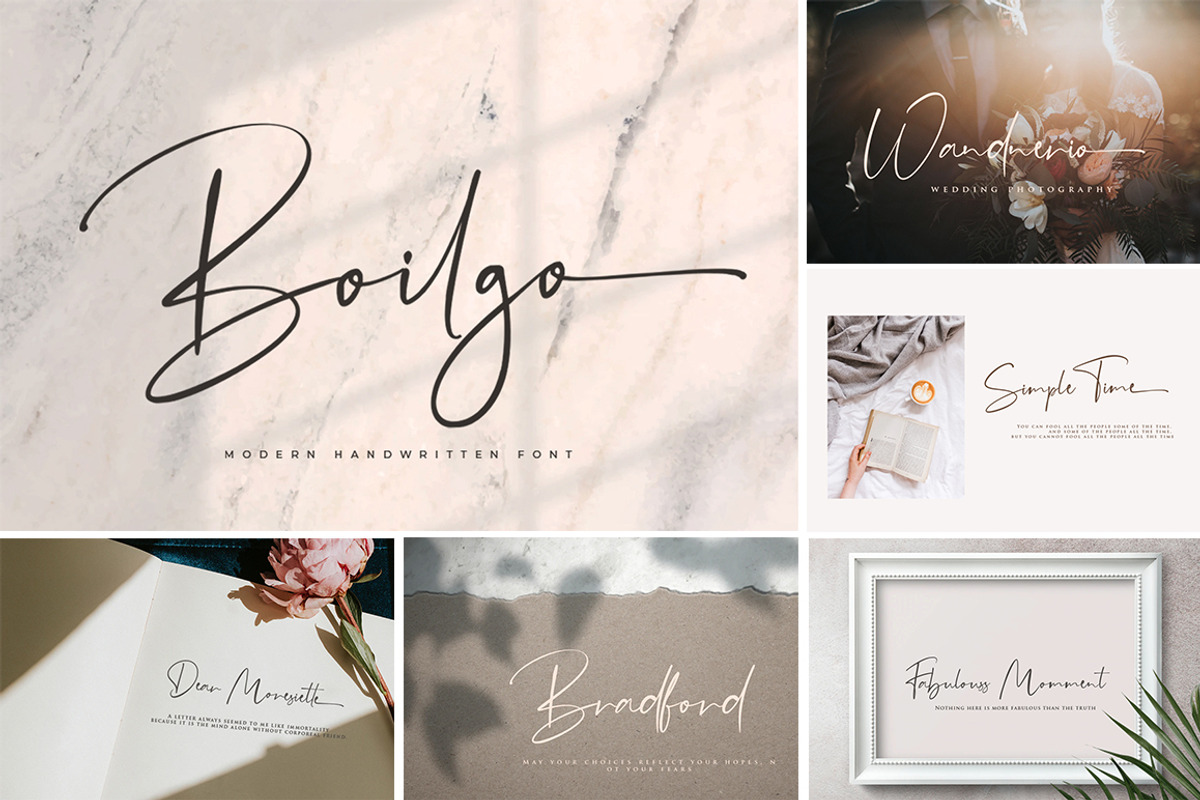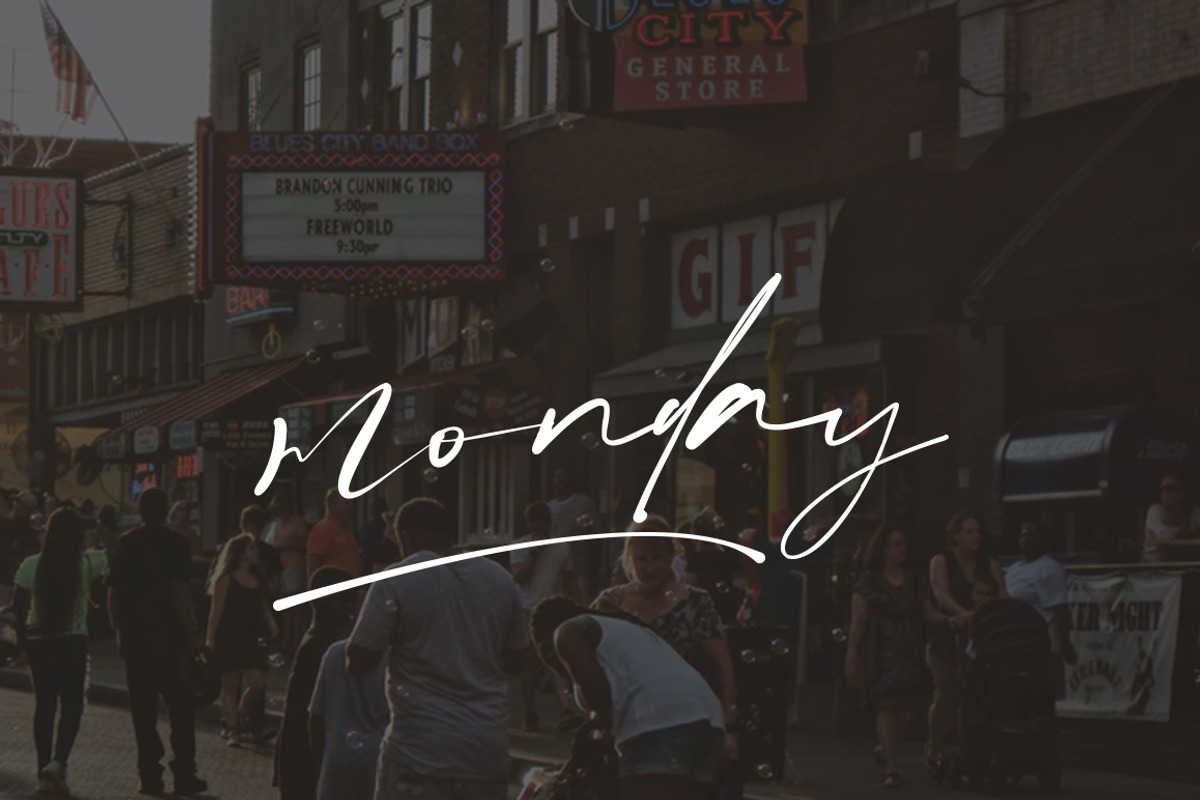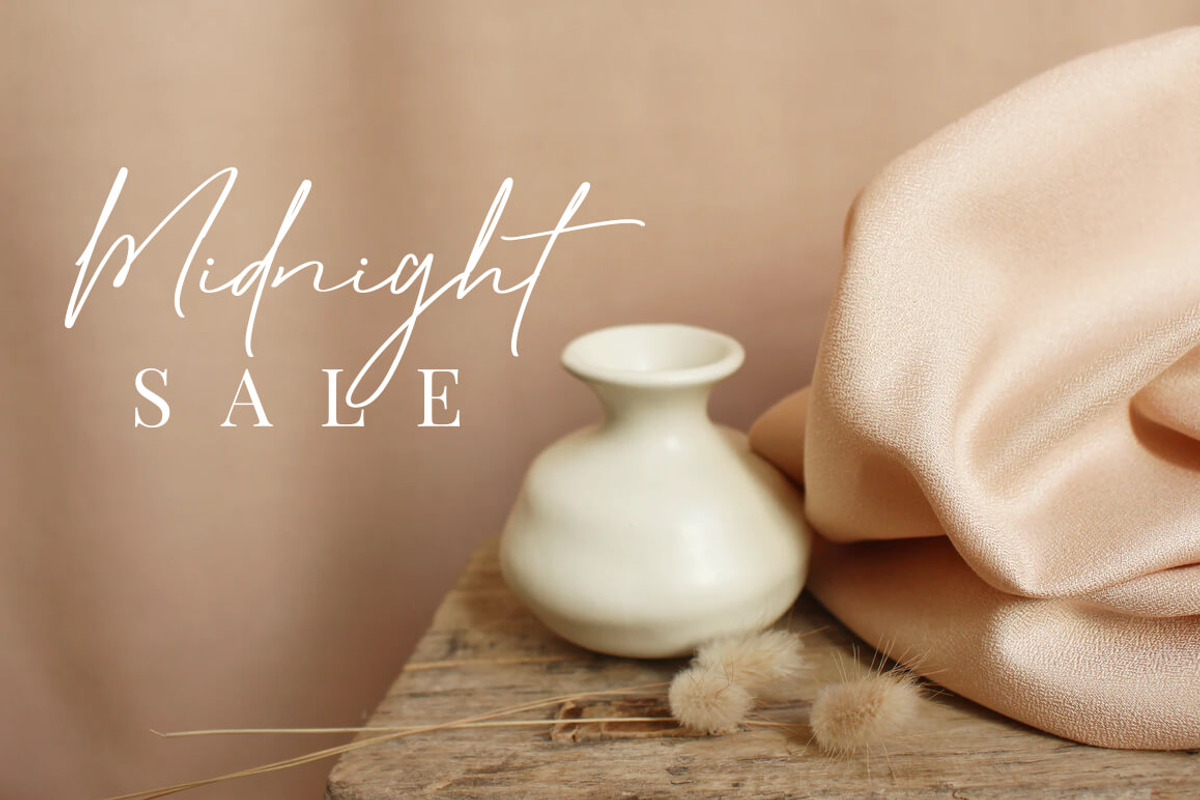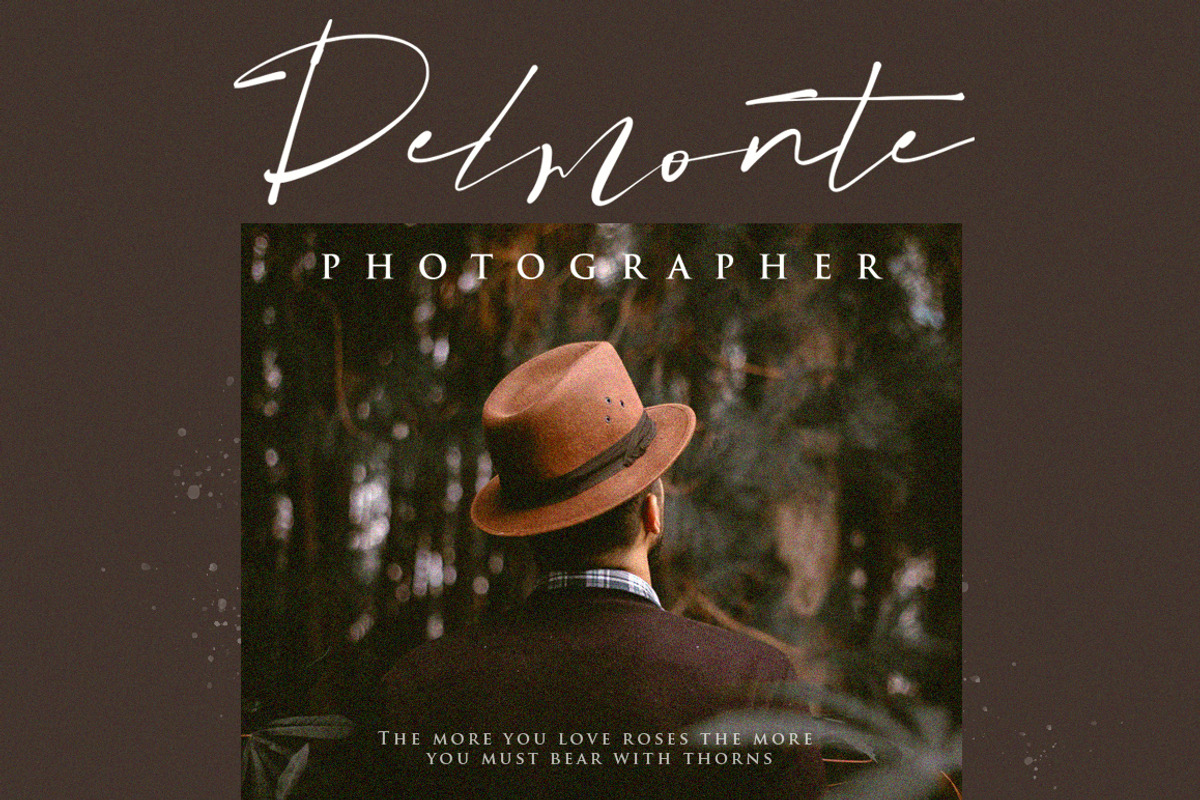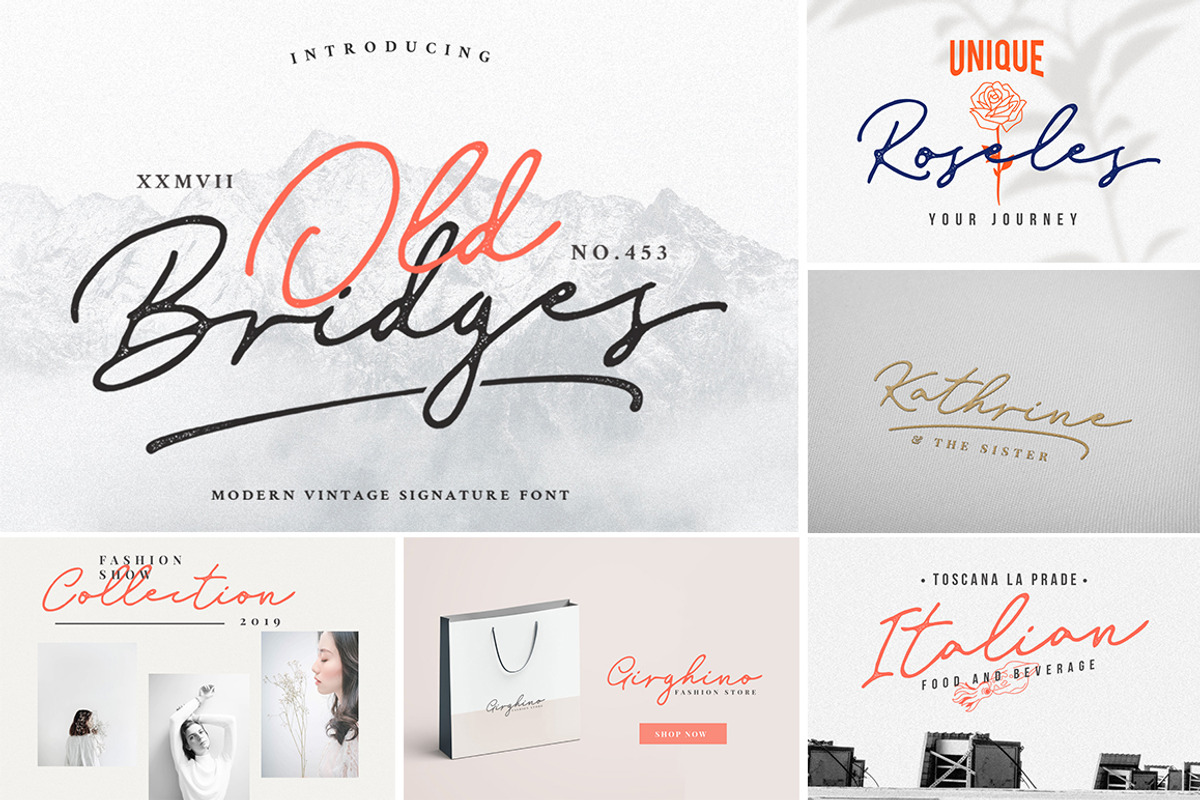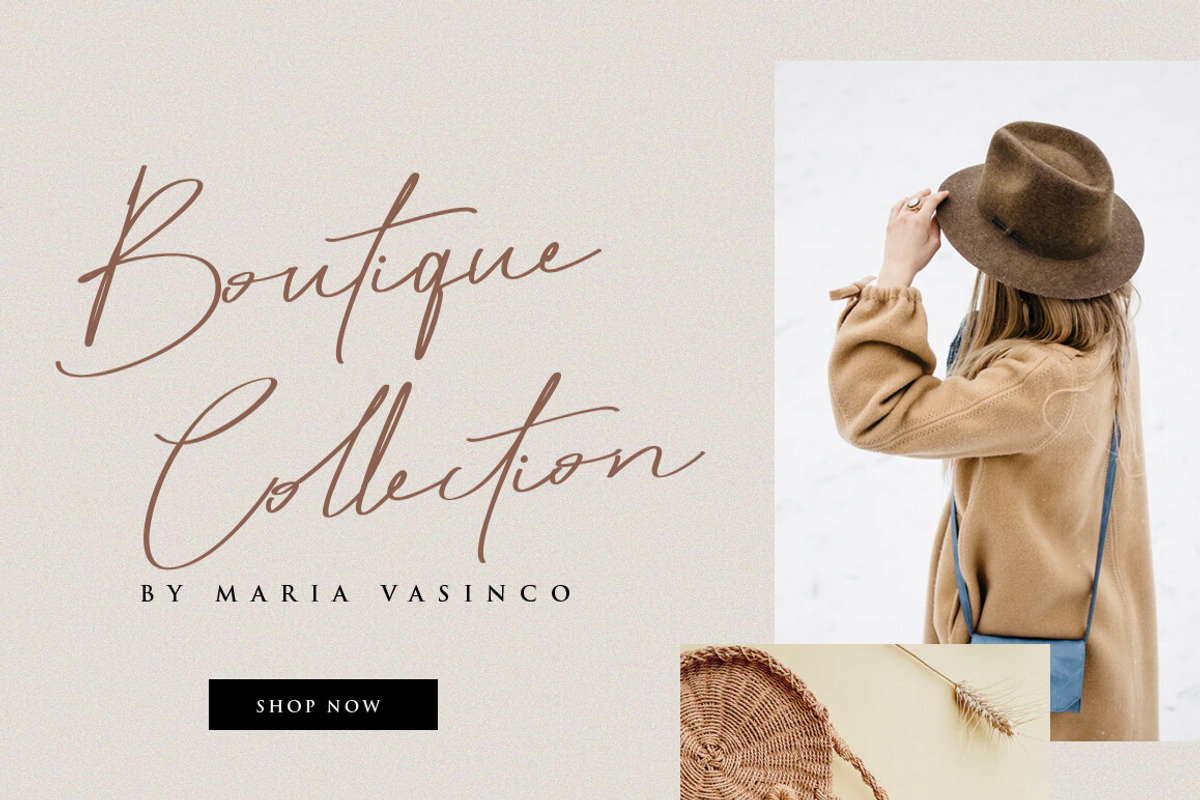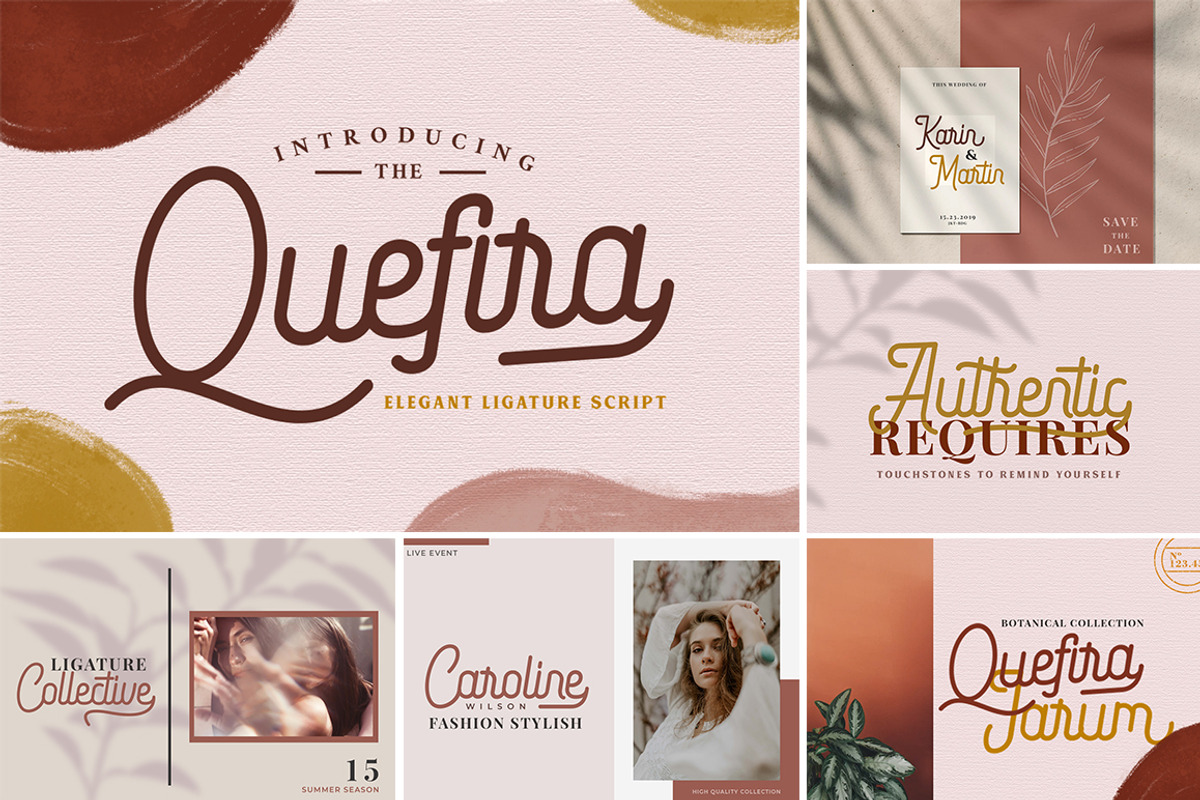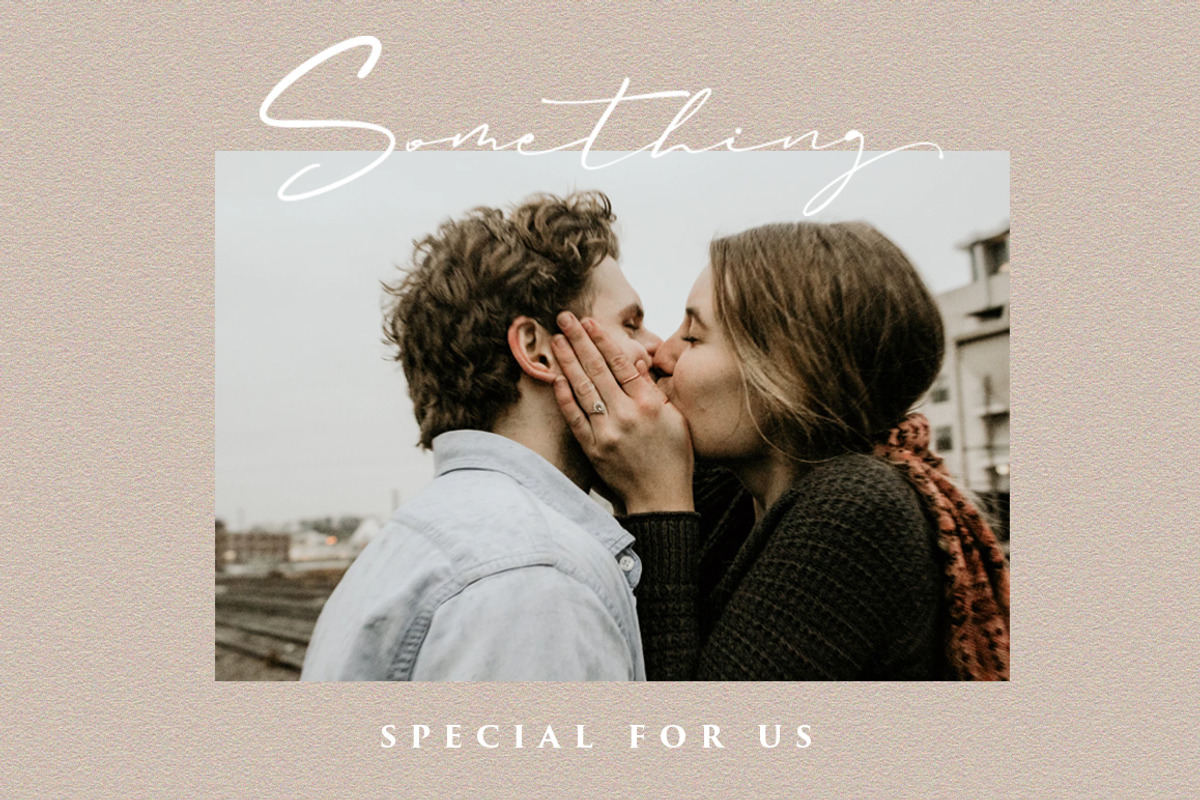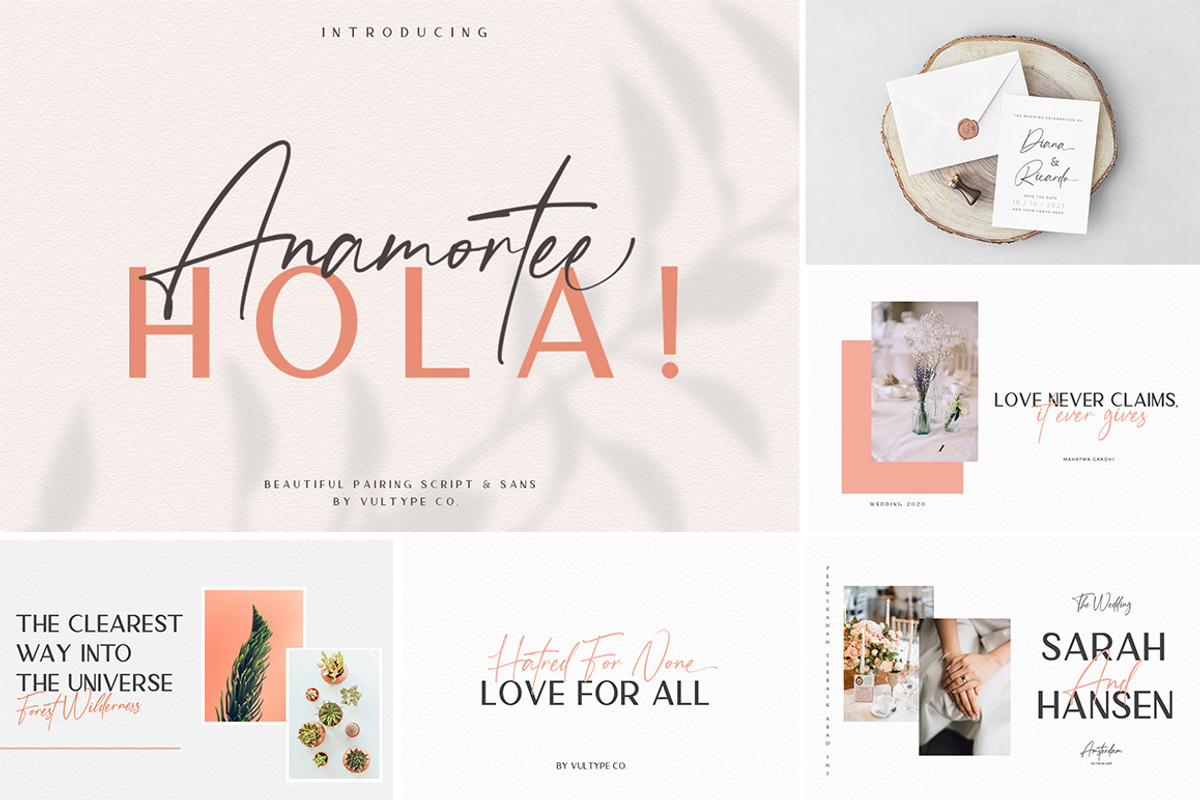
Best 45+ Calligraphy Font Bundle
๐ฅ One of the Biggest Font Bundle On The Market
Script font bundle ๐๐ ๐ ๐ป Let's welcome huge font bundle with 45+ Handwritten Font. that you can use on future projects
All characters have an imperfect shape that gives a natural look in design. It easily cooperating together and perfect for creating the traditional style Invites, planner stickers, fabric, cushions, blogs, branding, weddings, scrapbooking, posters, packaging, nail art, etc with Standard License
Use the fonts for: logos, branding, wedding invitations, farmhouse decor, farmhouse signs, mugs, shirts, pantry labels, stickers, business cards, greeting cards, posters, social media, planner prints and websites.